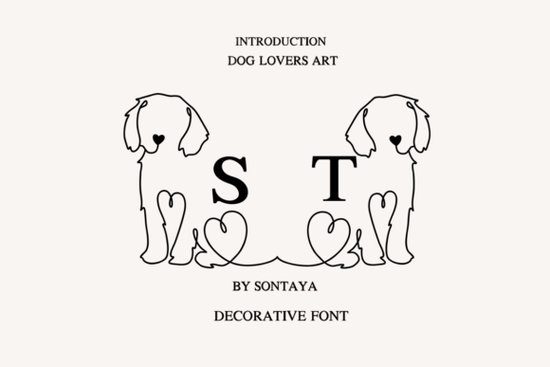
If you’re someone who loves dogs and also enjoys adding a personal, handcrafted touch to your designs, the Dog Lovers Art Font might be just what you’ve been looking for. It’s not your typical font it’s more like a collection of playful doodles and letterforms that feel like they were drawn with love (and maybe a tail wag or two in the background). Whether you’re making greeting cards for fellow dog owners, designing shirts for your Etsy shop, or just jazzing up your journal, this font brings warmth and personality without trying too hard.
What makes it especially useful is how flexible it is. You don’t need to be a pro designer to make something cute with it. The letters have that handwritten charm, but they’re still clean enough to read perfect for quotes on mugs, social media graphics, or even classroom handouts if you’re a teacher with a soft spot for pups.
What kinds of projects work best with this font?
Because it’s decorative but not overwhelming, you can use Dog Lovers Art Font in all sorts of ways. Here are some real-life examples from users:
- Greeting cards – birthdays, adoption day, “thinking of you” notes for fellow dog lovers
- T-shirts and tote bags – phrases like “Proud Dog Mom” or “My Dog Is My Therapist” look adorable in this style
- Instagram posts and Pinterest pins – great for pet influencers or small pet businesses
- Planners and journals – use it for headers, section titles, or fun weekly quotes
- Wedding or party invites – if the couple or host is obsessed with their pup, why not let that shine?
It also pairs well with other playful fonts. If you’re working on a layered design, try combining it with something like Wildflower Doodles that combo gives you flowers, paws, bones, and script-like lettering all in one layout. Super handy when you’re building themed bundles for print-on-demand or digital downloads.
One tip: because it’s a decorative font, avoid using it for long paragraphs. Stick to headlines, short quotes, labels, or accent text. That way, it stays readable and doesn’t lose its charm. Think of it like sprinkles on a cupcake a little goes a long way.
Who is this font NOT for?
Let’s be honest if you’re designing a corporate annual report or a legal document, this probably isn’t the right pick. It’s meant to feel friendly, casual, and full of heart. So if your project needs serious, minimalist, or highly structured typography, you’ll want to look elsewhere.
But if you’re creating anything that celebrates joy, pets, family, or everyday creativity? Then yes this font belongs in your toolkit. Even if you’re not a “dog person,” the style is warm enough to appeal to anyone who likes handmade aesthetics.
How does it compare to other pet-themed fonts?
There are plenty of “cute dog” fonts out there, but many lean too cartoony or feel overly childish. Dog Lovers Art Font strikes a nice balance it’s whimsical without being silly, artistic without being messy. The strokes have subtle variations that mimic real handwriting, which helps your designs feel more human and less “templated.”
Another thing people like? The spacing. Some decorative fonts cram letters together or leave awkward gaps, but this one was clearly tested across different words and layouts. Try typing “Woof,” “Rescue Dog,” or “Best Friend” they all look naturally balanced.
- Pair it with a simple sans-serif for body text (like Arial or Helvetica) to keep things readable
- Use sparingly let it highlight, not overwhelm
- Check contrast if printing light gray on white might disappear; go bold or dark for clarity
Whether you’re making gifts, running a shop, or just decorating your own space, fonts like this help you tell stories not just display words. And sometimes, the story is as simple as “I love my dog.” That’s worth celebrating.